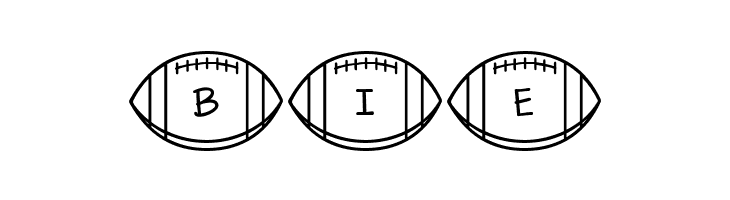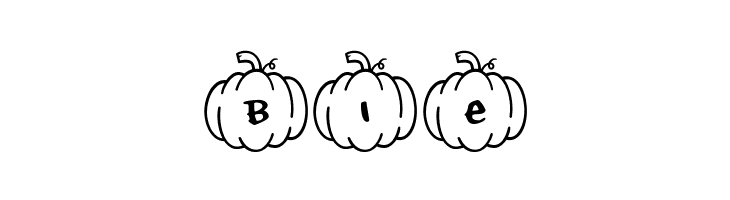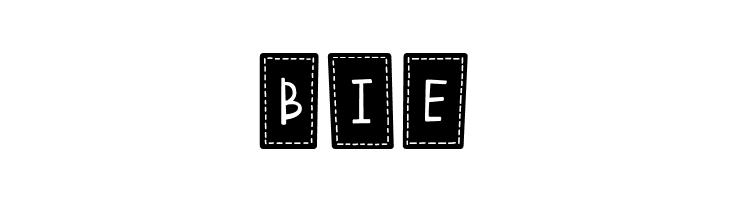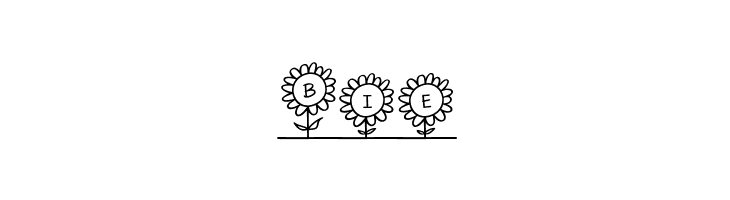
• Footballs Regular
A decorative font with characters inside football shapes, perfect for sports themes.
• (Book+Ends)
A decorative font with letters encased in book spines, offering a playful and thematic design.
• Farm to Market Fancy
A playful, hand-drawn font with tall, narrow characters and a whimsical style.
• Farm to Market
A playful, hand-drawn font with tall, narrow letters and a whimsical style.
• Hodgepodgery Sketched
A playful, hand-drawn font with a sketched, textured style.
• Playful*Pumpkins
A playful, pumpkin-themed font with a hand-drawn, festive style.
• Quilt*Patches
A playful, patchwork-style font with a hand-stitched appearance.
• SoMeFlOwErS
A playful font with characters inside sunflower designs, offering a whimsical and cheerful look.
• Festive*Balloons Regular
A playful font with characters inside balloons, perfect for festive occasions.
• Maryanne Signature
A fluid and elegant handwritten font with artistic loops and curves.